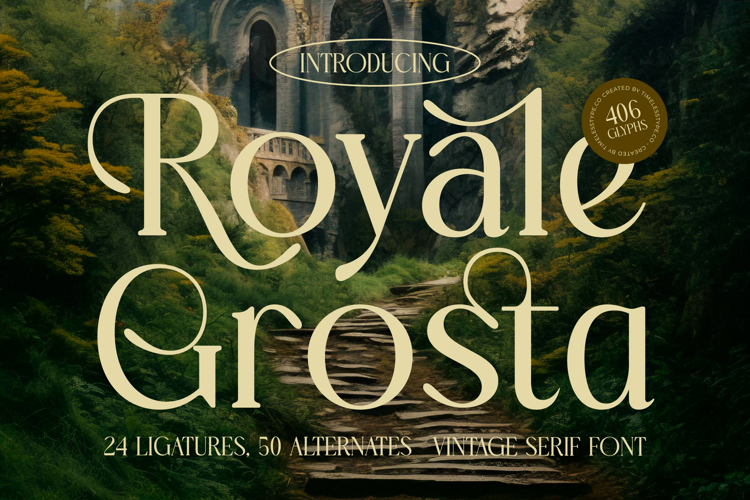
Royale Grosta - Vintage Serif Font
Unleash unparalleled elegance with Font Royale Grosta - Vintage Serif Font Serif Display, a typeface designed to command attention. This exquisite display font embodies a rich blend of vintage charm and contemporary flair, characterized by its striking high-contrast strokes and gracefully flowing serifs. Its sophisticated curves and delicate details imbue any project with an immediate sense of luxury and refined aesthetic, making it an ideal choice for design seeking a distinctive, memorable presence.
Experience the true depth of bespoke craftsmanship embedded within Font Royale Grosta - Vintage Serif Font Serif Display. Beyond its captivating initial impression, this font offers extensive creative freedom with 24 ligatures and 50 alternates, allowing for truly unique typographic compositions. With its extensive multilingual support, Font Royale Grosta - Vintage Serif Font Serif Display adapts seamlessly across global markets, making it incredibly versatile for international projects and ensuring your message resonates universally.
Perfectly suited for projects demanding a touch of grandeur, Font Royale Grosta - Vintage Serif Font Serif Display is your ultimate design asset. It is ideal for luxury branding, high-end packaging, sophisticated editorial design, fashion labels, exclusive invitations, and captivating headlines. Elevate brand identities and infuse marketing materials with a sense of timeless appeal, creating a truly unforgettable visual experience that speaks volumes about quality and distinction.